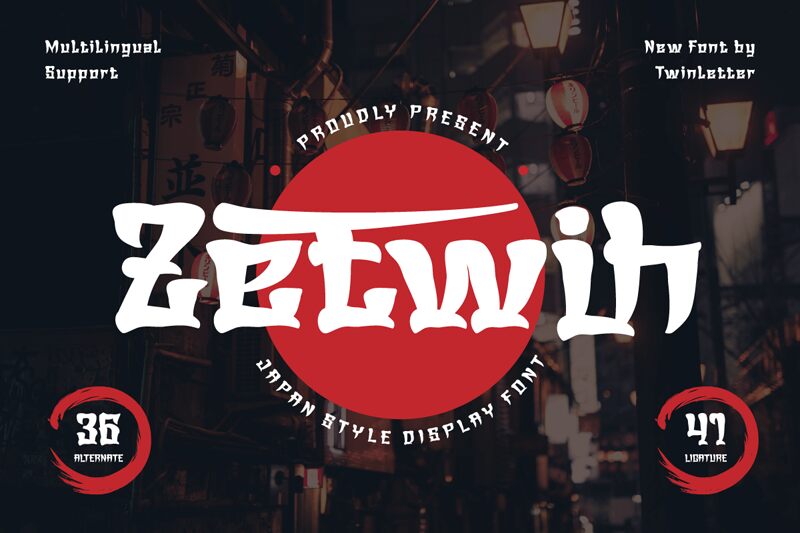
Zetwih font family by twinletter beautifully emulates the artistic feelings of Japan and the Far East cultures. This free font family comes in 2 styles, each one mixing a combination of elements from classic Kanji characters and modern digital typography. The resulting aesthetic, similar across both styles, is impactful and bold. Powerful, strong, and offbeat at the same time, Zetwih offers a twist on universally familiar symbols, providing a striking visual experience to the audiences.
With a modern look deeply rooted in its history, Zetwih finds its place in branding, book covers, posters, greeting cards, comics, and many other typography projects. The introduction of non-standard Japanese-like letters can help catch the attention of readers in creative industry magazines, business signage, newsletters, and event posters among many others.